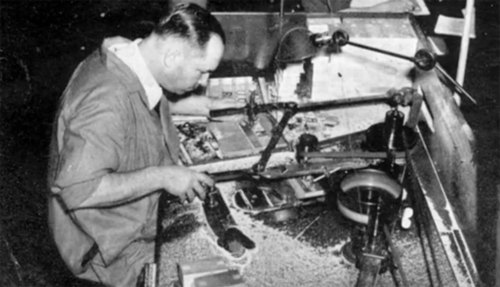
The Retirees of Hamilton Wood Type
The retirees of Hamilton Wood Type share their stories of how wood type is made and what it was like to work at the largest maker of wood type in the world.